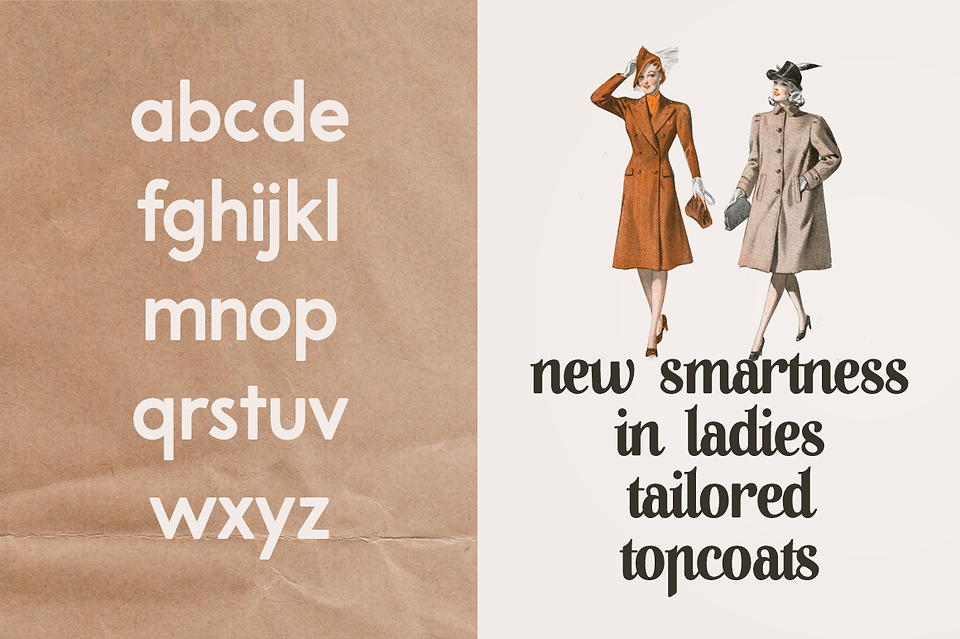
Hi everyone! Another month, another font. For this font I drew inspiration from a vintage ad for an old Portuguese lingerie shop called "A Pompadour". The original poster, first published in 1942, was designed by Maria Keil (1914-2012), a Portuguese painter, illustrator, designer (etc, etc).
A Pompadour
The "A Pompadour" font family includes the two styles found in the ad: the serif-y title font, with the connecting characters, and the modernist sans serif text font. The text font also includes a bold version with rounded edges, and small caps, which give you more versatility in terms of possible uses and combinations.
The strong retro vibe that (I hope) emanates from the font was the inspiration for the cover images, in which I used vintage fashion illustrations from the NYPL Digital Collections (which are amazing! Go check them out and see if you can resist staying there for hours browsing through their archives).
A Pompadour